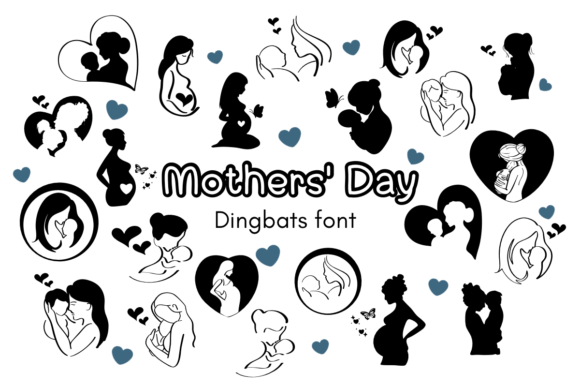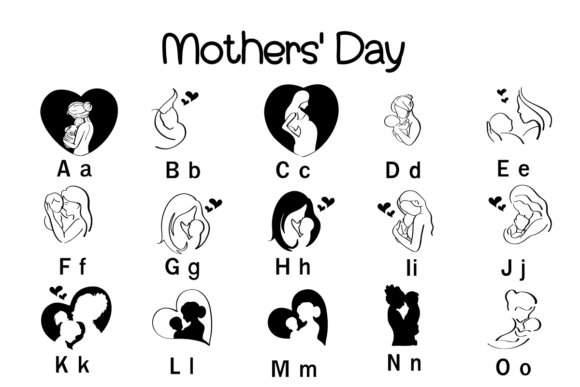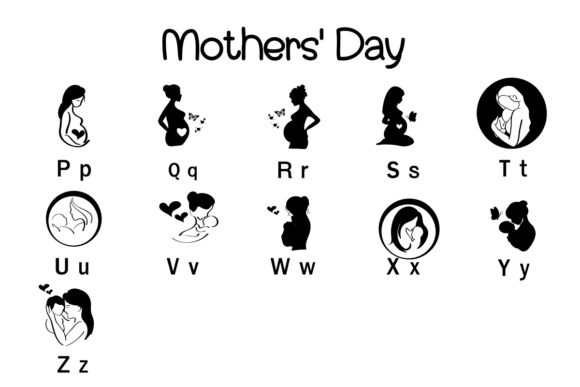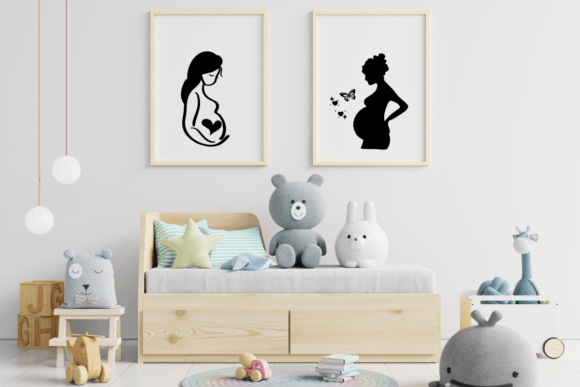
Mothers’ Day Font
About the Mothers’ Day Font
Crafted with precision, the Mothers’ Day Font is ready to bring your ideas to life. Mothers’ Day is a charming dingbat font featuring adorable illustrations of mothers and their children. Perfect for adding a heartfelt touch to your designs, this font allows you to easily incorporate sweet imagery into your Mother’s Day cards, crafts, and projects. Celebrate the special bond between mother and child with this delightful and versatile font.
Mothers’ Day Font’s charming illustrations make it ideal for projects emphasizing warmth and connection, such as children’s books, greeting cards, or branding for family-oriented businesses. It works well in headlines, short quotes, and decorative elements on packaging or invitations, adding a touch of handmade charm. However, its illustrative nature makes it unsuitable for body text or UI elements requiring high readability.
Pairing this font effectively requires a contrast in style. A clean sans-serif like Open Sans or a slightly more playful script font such as Great Vibes would create a balanced and harmonious design. Avoid pairing it with other decorative or highly stylized fonts to prevent visual clutter.
The overall personality of Mothers’ Day Font is undeniably friendly and heartwarming, conveying a sense of nostalgia and gentle affection. Its visual style leans towards a whimsical yet sophisticated aesthetic, making it suitable for brands targeting a family-friendly or emotionally driven audience.